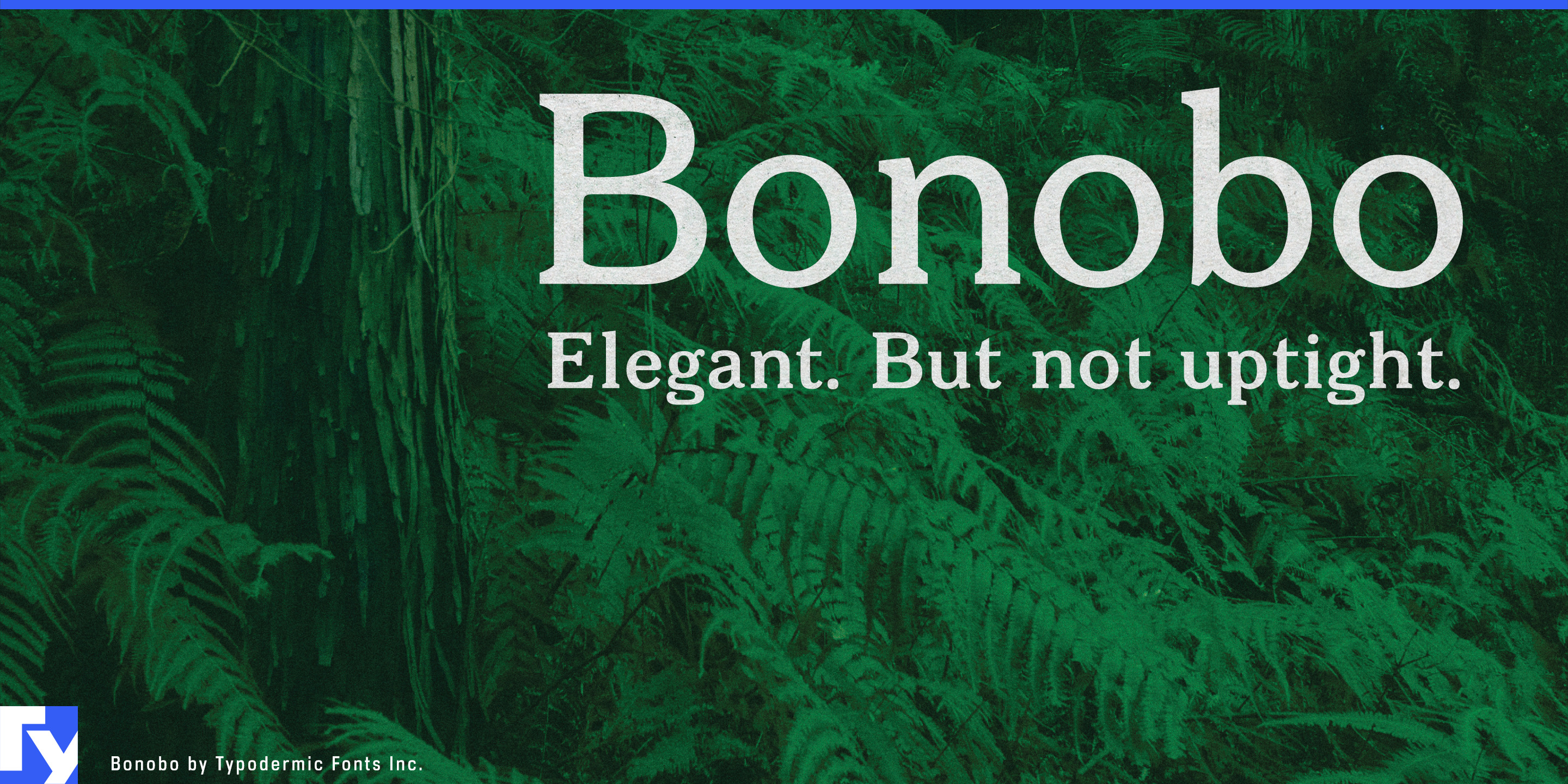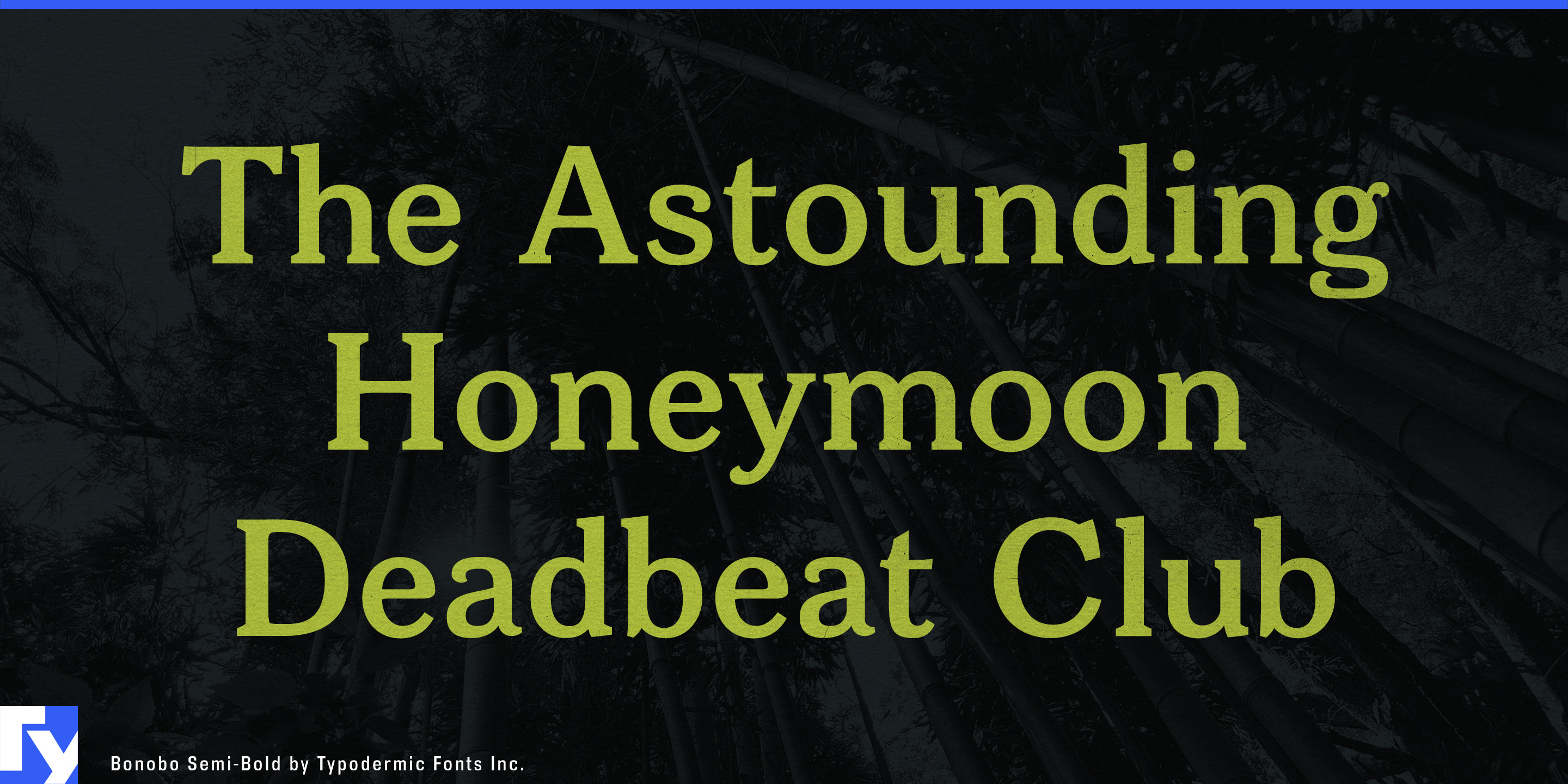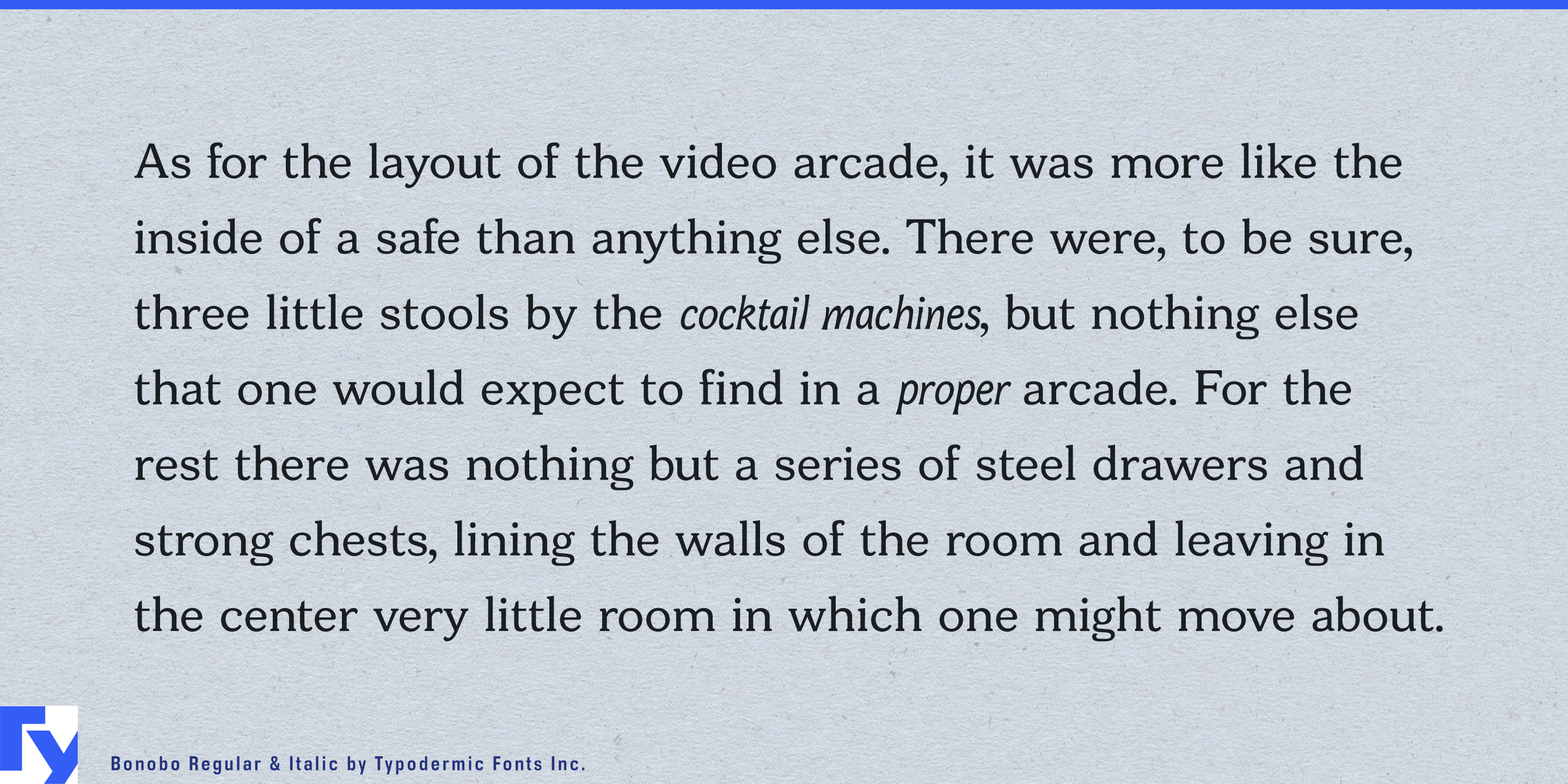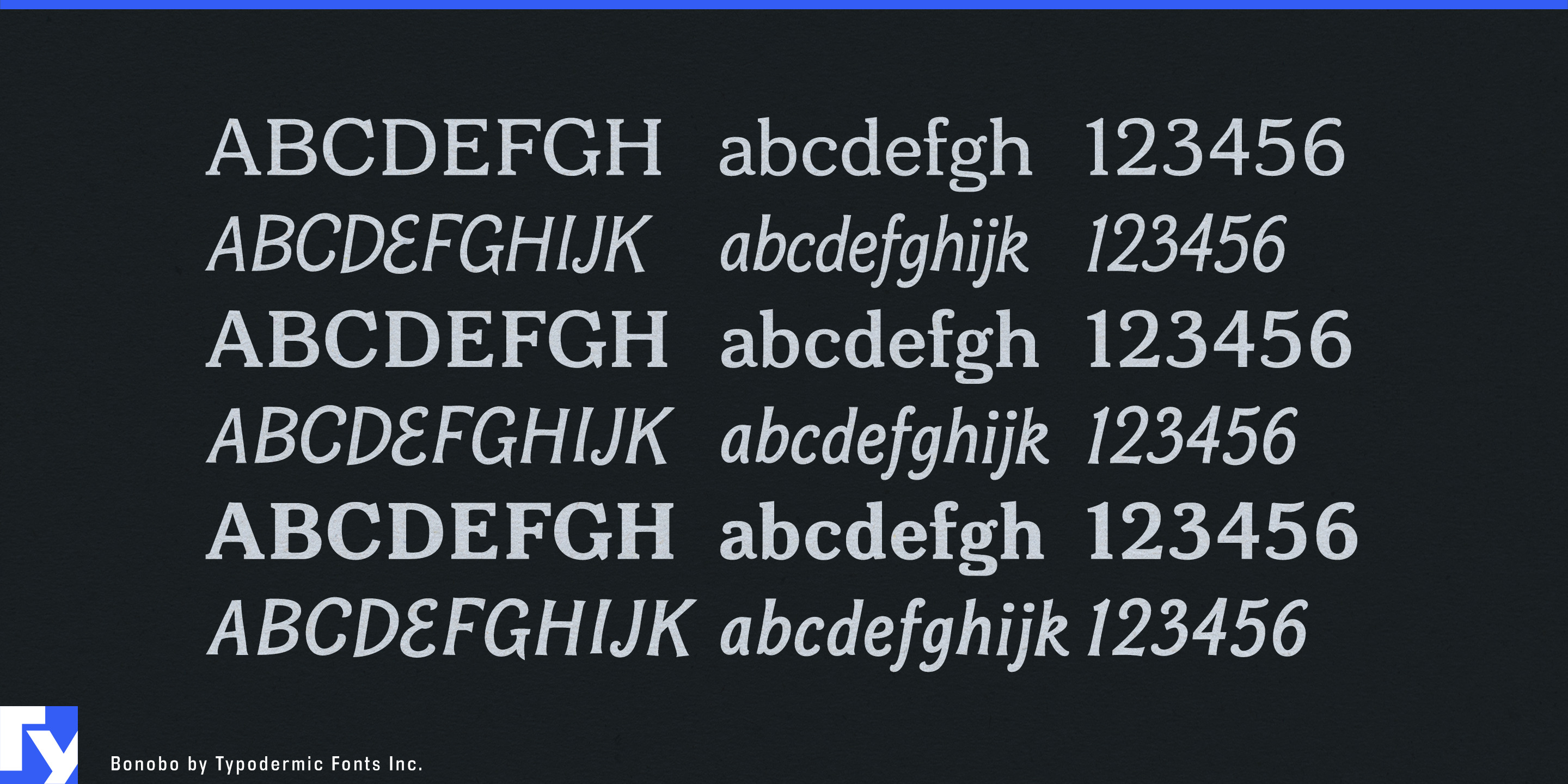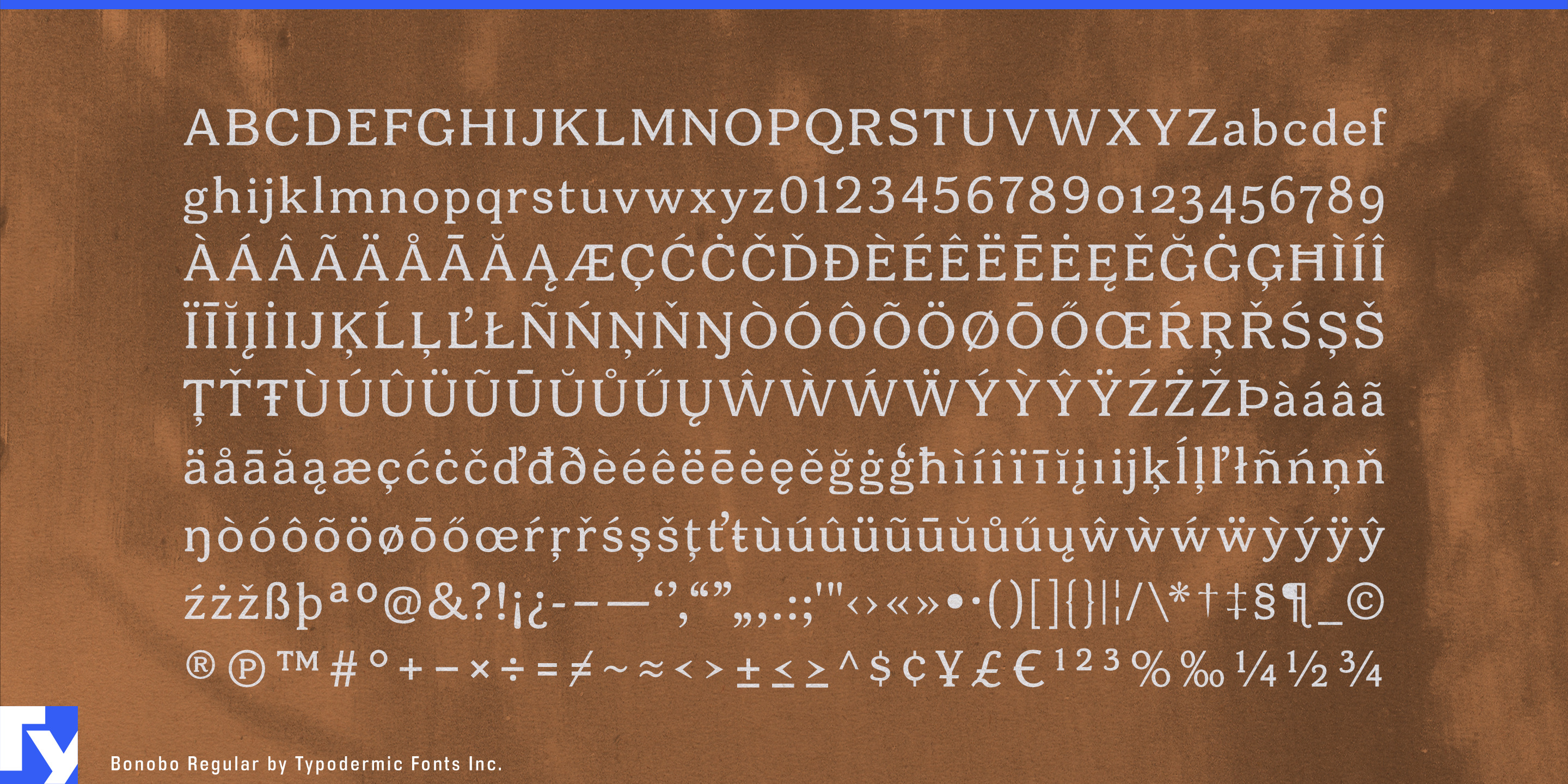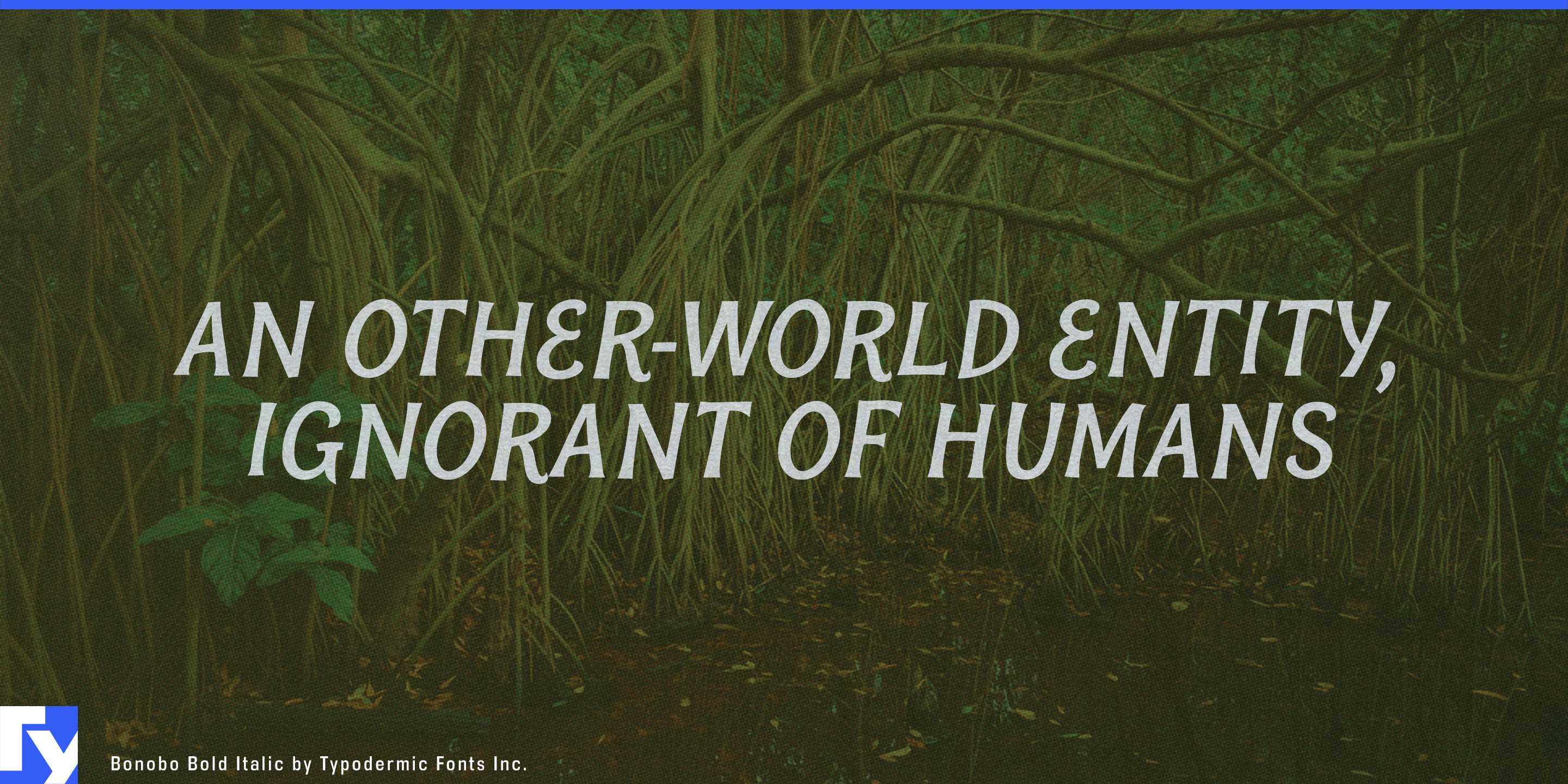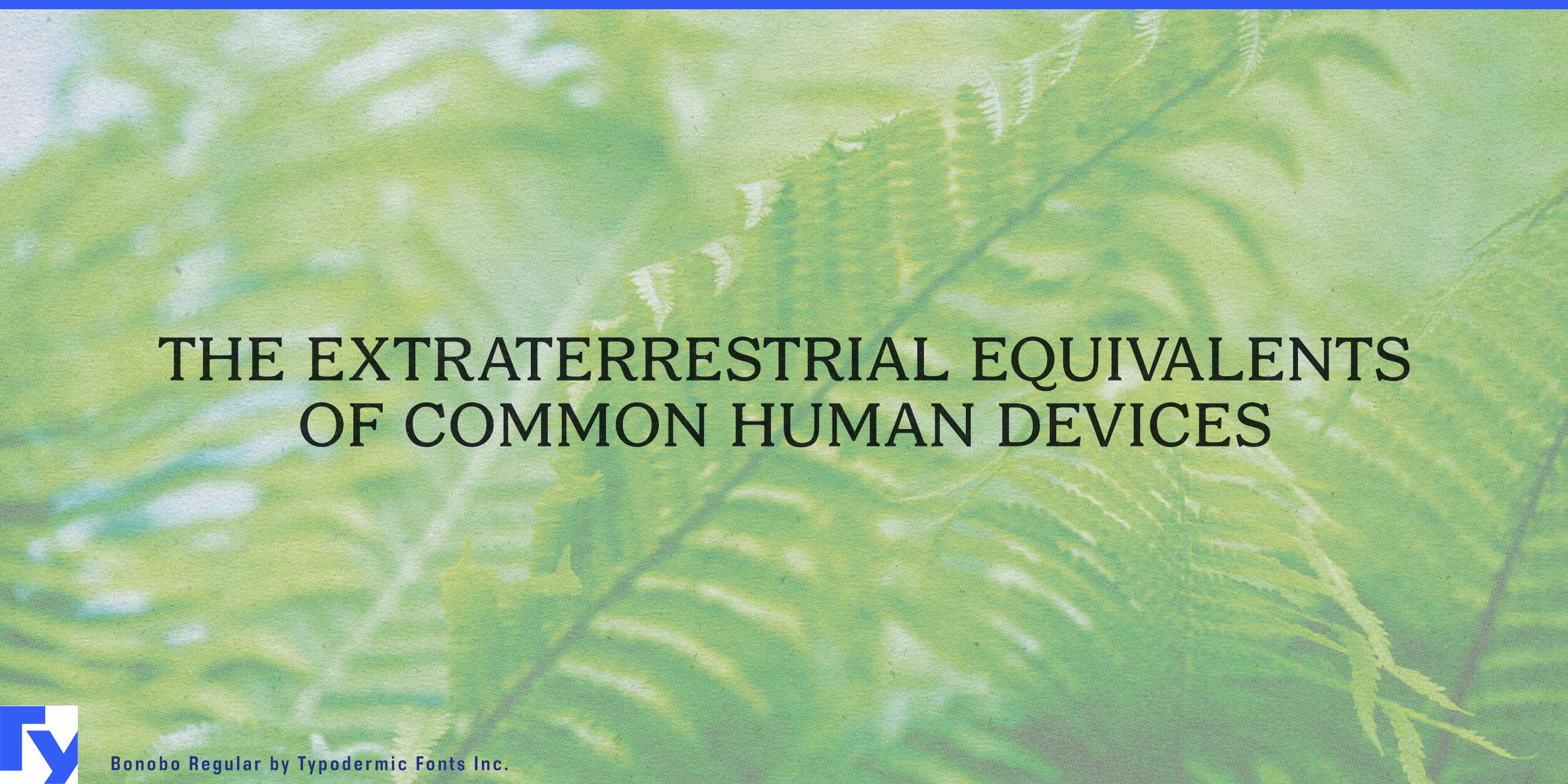
Bonobo
Bonobo is a transitional serif typeface with muscle and charm. Its blunt, slightly tapered serifs plant words firmly on the page, while subtle stroke modulation adds the warmth and humanity of classic book faces. The spacing is open, the proportions generous—text breathes easily, making long reads inviting rather than tiring.
The italics bring a different kind of energy. More than a simple slant, they have a hand-drawn quality with gentle entry strokes and graceful sweeps, perfect for adding emphasis or a conversational shift in pull quotes, subheads, and packaging. Influenced by 19th-century Bookman styles yet stripped of fussy ornament, Bonobo feels at home in contemporary editorial work, boutique branding, and literary covers. The sturdy capitals anchor headlines without shouting; the lowercase flows with a relaxed rhythm in body copy.
With multiple weights, multilingual support, and a design that balances authority with friendliness, Bonobo adapts as easily to the page of a hardcover novel as it does to signage, menus, or annual reports. It’s a serif with a handshake as firm as its serifs.